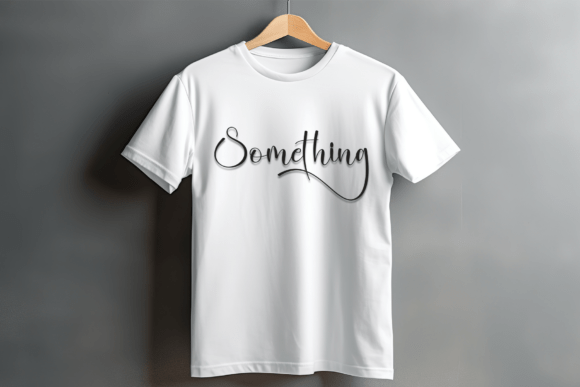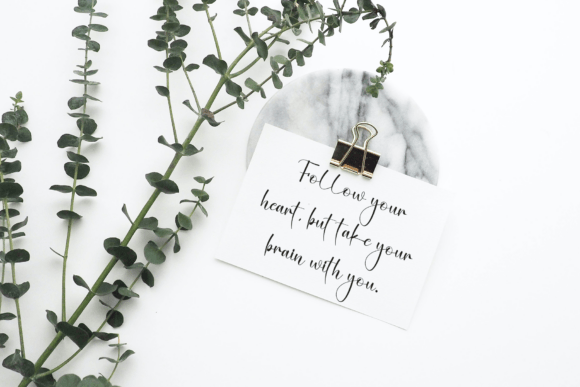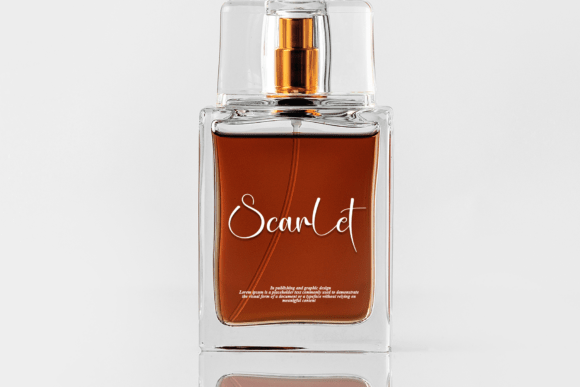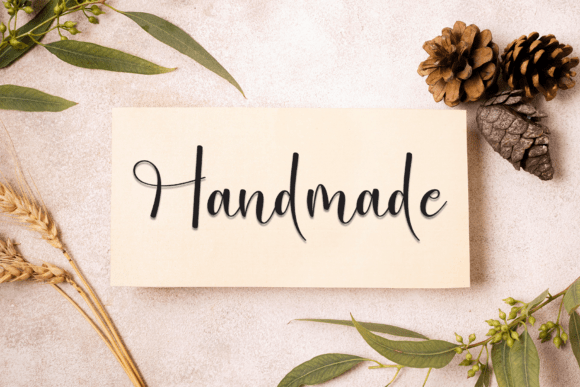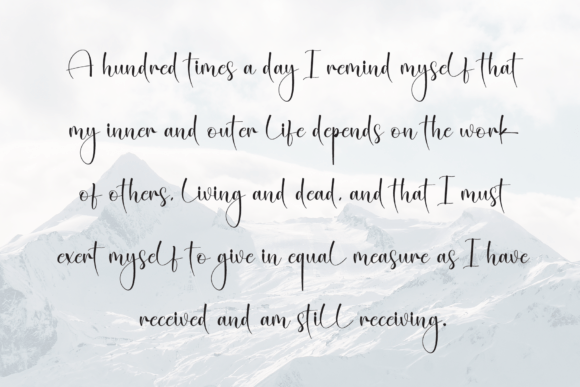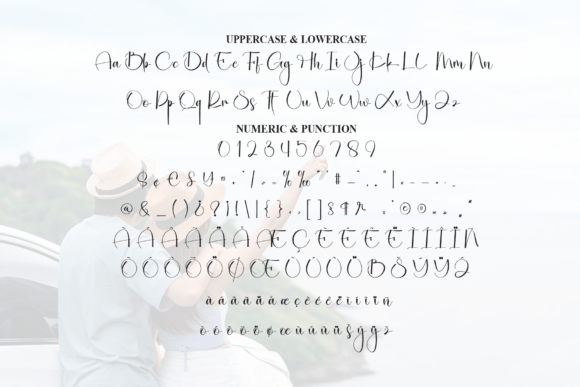
Unlock the Secret to a Carefree Design: Holiday Font
As a designer, have you ever found yourself staring at a blank canvas, desperately searching for the perfect font to capture the essence of a summer getaway or a whimsical wedding? I’m sure you’ve been there too. The perfect font can make all the difference in transporting your audience to a world of freedom and joy. That’s where the Holiday Font comes in – a stylish handwritten script font that radiates warmth and effortless charm.
With its fluid strokes and elegant letterforms, the Holiday Font is perfect for travel blogs, wedding invitations, social media posts, and summer-themed designs. Whether you’re looking to add a relaxed yet refined touch to your next project or simply want to evoke a carefree and joyful vibe, this font is an invaluable asset to any designer’s toolkit. Its versatility and charm make it a go-to choice for designers seeking to create engaging and memorable designs.
Holiday Font Key Features
- Unique Characteristics: Holiday Font features a unique, festive design with intricate details and ornaments, perfect for adding a touch of holiday magic to your designs.
- Font Styles: Holiday Font includes multiple font styles, including regular, bold, italic, and bold-italic, giving you plenty of options for creative expression.
Review of Holiday Font
Overall, I was excited to dive into the Holiday Font, but my experience was a mixed bag. Let’s start with what works well ✨.
- Playful and festive vibe: The font does an excellent job of capturing the holiday spirit, perfect for Christmas or winter-themed designs.
- Variety of styles: The font offers a range of styles, from bold and playful to elegant and sophisticated, giving users plenty of options for their designs.
- Good for headings and titles: The font’s unique flair makes it ideal for headings and titles, adding a touch of whimsy to any design.
Now, let’s discuss the limitations ⚠️.
- Limited legibility: At smaller font sizes, the font can become difficult to read, which may be a concern for body text or longer passages.
- Not ideal for long blocks of text: The font’s playful nature makes it better suited for short phrases or headings rather than long blocks of text.
- May not be suitable for all audiences: The font’s festive vibe may not be suitable for designs that require a more subdued tone.
Overall, the Holiday Font is a fun and unique addition to any designer’s toolkit. While it excels in certain areas, its limitations should be taken into consideration before using it in a design.
Holiday Font Practical Application Guide
Some tips for getting the most out of Holiday Font include:
- Using it for festive and holiday-themed projects.
- Combining it with other bold and playful fonts for a fun and eclectic look.
- Adjusting the font size and color to create contrast and visual interest.
Common use cases for Holiday Font include:
- Holiday cards and invitations.
- Festive social media posts and graphics.
- Winter-themed projects and designs.
Alternatives to Holiday Font for Designers
Playfair Display is a luxurious and elegant serif font perfect for adding a touch of sophistication to your designs. It’s ideal for use in invitations, wedding stationery, and high-end branding. Compared to Holiday Font, Playfair Display has a more refined and classic feel, making it a great choice for formal and traditional designs.
Great Vibes is a modern and stylish script font that’s perfect for adding a personal touch to your designs. It’s ideal for use in wedding invitations, greeting cards, and social media graphics. Compared to Holiday Font, Great Vibes has a more casual and relaxed feel, making it a great choice for informal and creative designs.
Carolyna Pro is a beautiful and elegant script font that’s perfect for adding a touch of whimsy to your designs. It’s ideal for use in wedding invitations, branding, and packaging design. Compared to Holiday Font, Carolyna Pro has a more feminine and delicate feel, making it a great choice for designs that require a touch of romance and elegance.